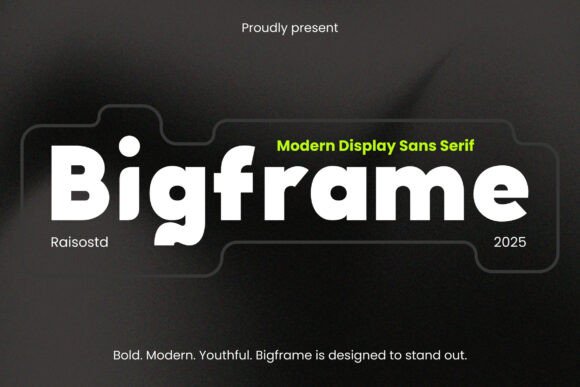
Unleashing the Power of Bigframe Font: A Modern Display Sans-Serif for Bold Statements
I’ll never forget the design project that led me to discover the Bigframe font. I was working on a branding campaign for a streetwear label, and my client asked for a font that would make a bold statement. I scoured the internet, tried out countless fonts, but nothing seemed to fit the bill. That was until I stumbled upon Bigframe – a heavy-duty, ultra-bold sans serif that instantly caught my attention.
Bigframe is more than just a font – it’s a design powerhouse that commands attention and exudes confidence. Its tight kerning and thick strokes create a solid wall of text that’s impossible to ignore. If you’re looking for a font that will elevate your branding, advertising, or social media graphics, Bigframe is an excellent choice.
What I Love About Bigframe Font
Here are some things that I absolutely love about Bigframe font:
- ✨ Maximum visibility: Bigframe’s ultra-bold design ensures that your text stands out, even at small sizes.
- ✅ Modern style: The font’s geometric structure and rounded edges give it a youthful, contemporary vibe.
- 💥 Versatility: Bigframe is perfect for a wide range of applications, from bold branding projects to social media thumbnails.
- 🔥 Energetic feel: The font’s bold design and thick strokes create a high-energy feel that’s perfect for streetwear labels, tech startups, and gaming graphics.
While Bigframe is an excellent font, there are a few quirks to be aware of:
- 🤔 Limited use cases for body text: Due to its ultra-bold design, Bigframe may not be the best choice for body text or lengthy paragraphs.
- ⚠️ Legibility at small sizes: While Bigframe is designed to be readable at small sizes, it may still be challenging to read if the font size is too small or the color contrast is poor.
- Experiment with OpenType features, such as glyphs and stylistic alternates, to add visual interest to your text.
- Explore the font’s OpenType features, such as glyphs and stylistic alternates, to add visual interest to your text.
The Story Behind Bigframe Font
Bigframe was designed with one goal in mind: to create a font that would make a bold statement. The designer, inspired by the world of streetwear and modern branding, set out to create a font that would be both visually striking and highly legible. The result is a font that’s perfect for brands that want to stand out and make a lasting impression.
| What is Bigframe font best used for? | Bigframe font is best used for bold branding projects, streetwear labels, tech startups, gaming graphics, social media campaigns, posters, advertising materials, YouTube thumbnails, and digital product promotions. |
| Is Bigframe font suitable for body text? | No, Bigframe font is not suitable for body text due to its ultra-bold design. It’s best used for headings and titles. |
| Is Bigframe font available in different weights? | Bigframe font is available in a single, ultra-bold weight. However, you can experiment with different font sizes and colors to achieve varying levels of emphasis. |